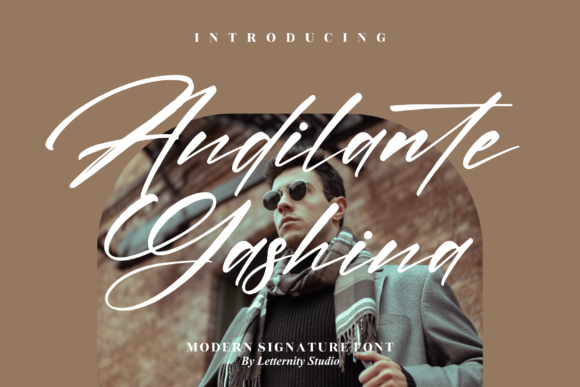
Andilante Gashina Font
Andilante Gashina is a romantic and sweet calligraphy typeface with characters that dance along the baseline. It will add a luxury spark to any design project that you wish to create! This font is PUA encoded which means you can access all of the amazing glyphs and ligatures with ease!